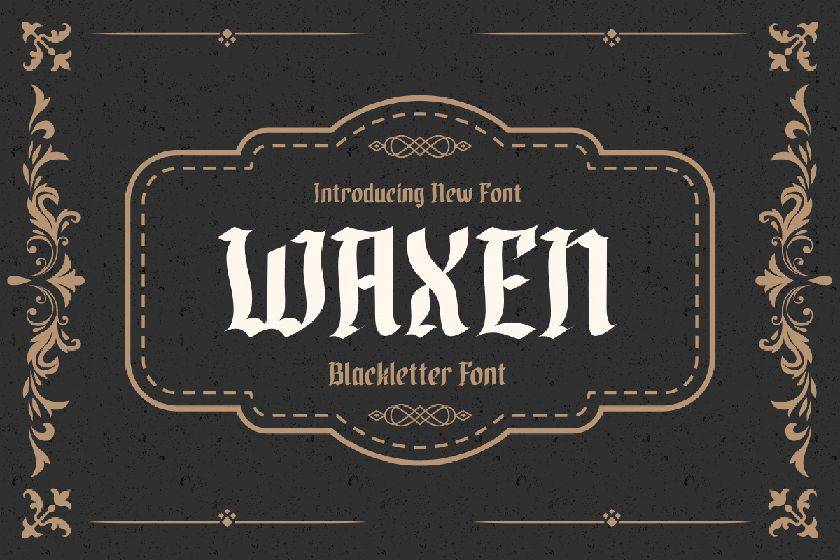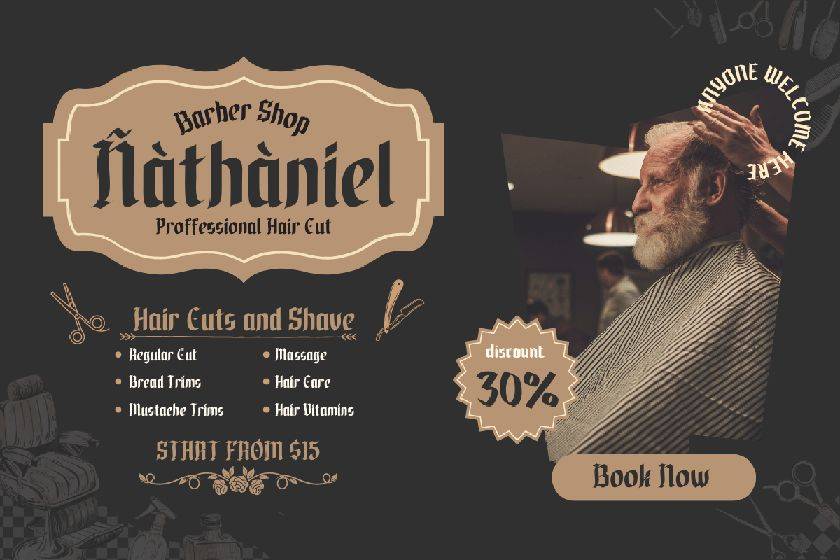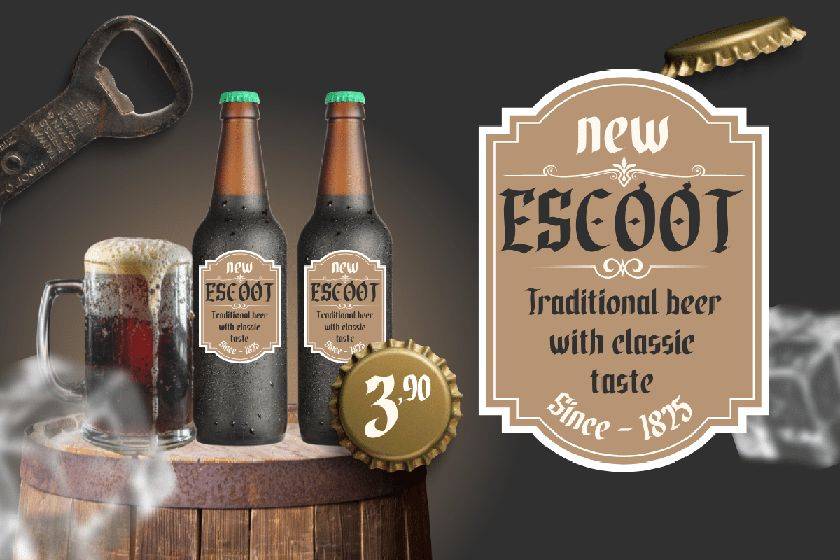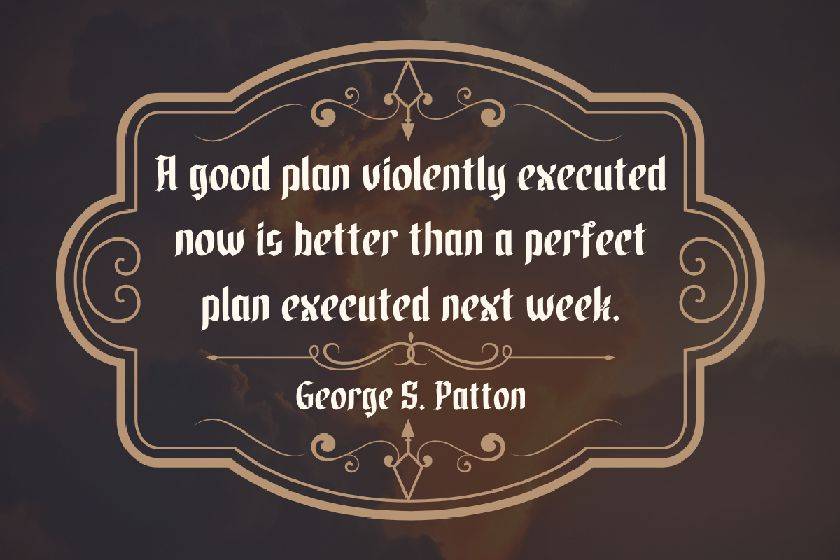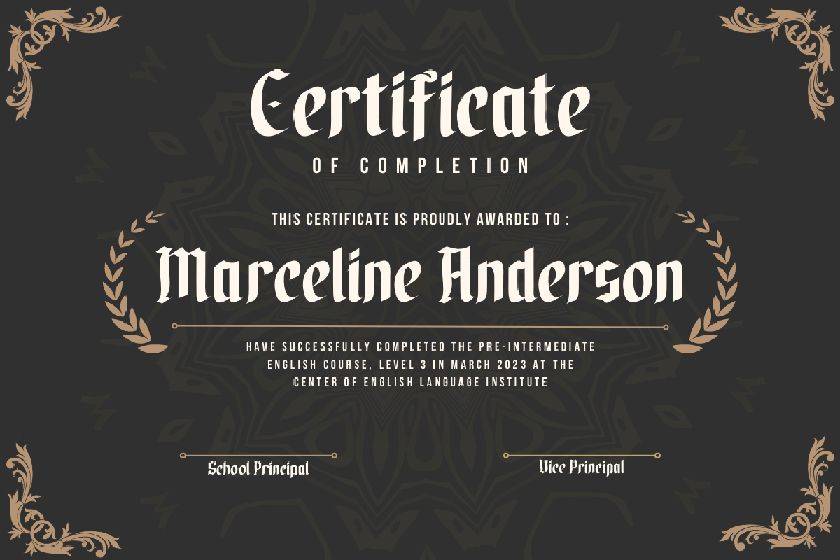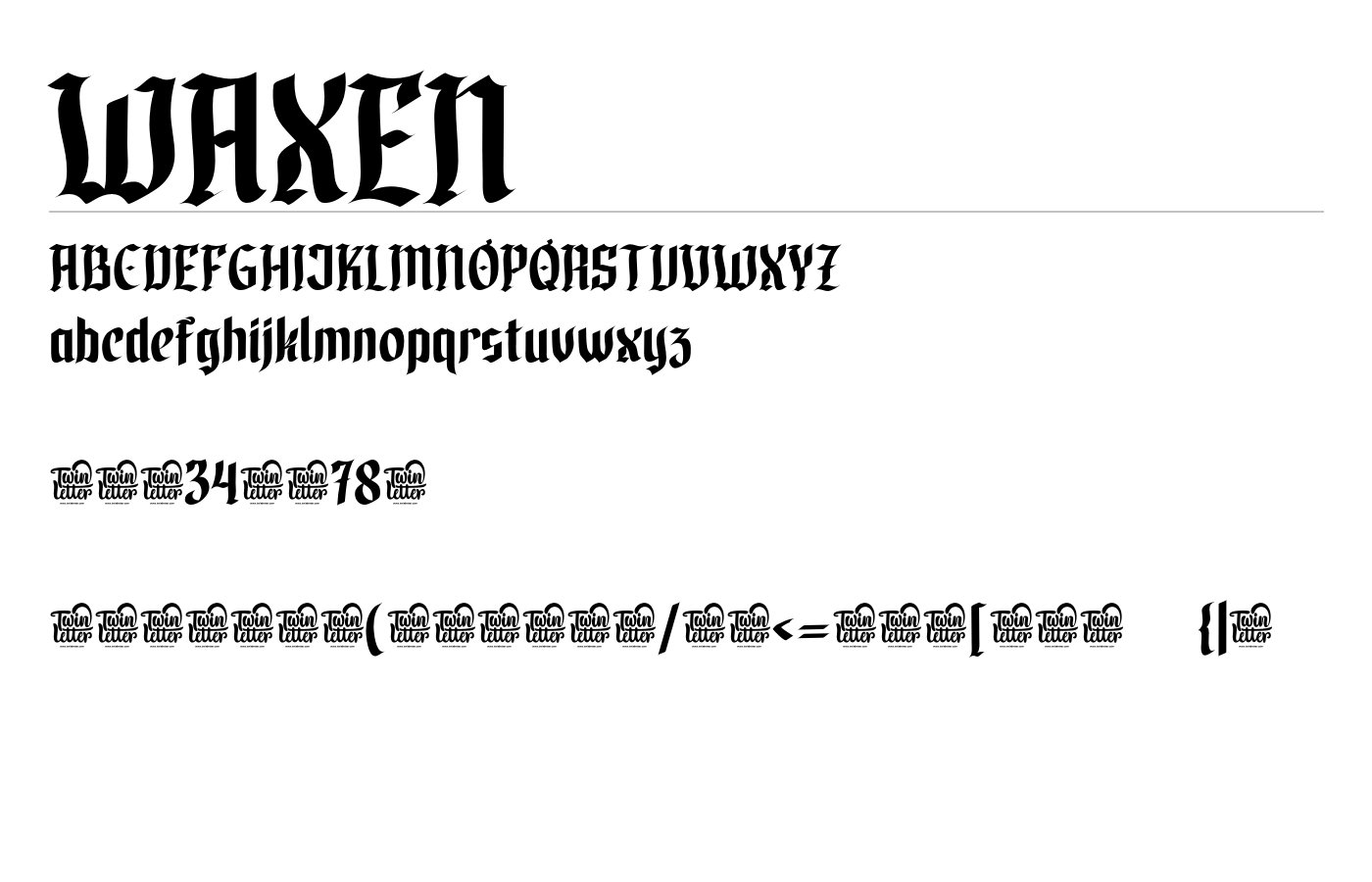
Waxen is a bold blackletter font with a strong gothic character, featuring sharp, angular strokes and dramatic contrasts that give it a striking, vintage medieval feel. Its condensed letterforms and intricate details suit it perfectly for bold headlines, logos, or branding that seeks a powerful, historic, or edgy vibe. This font works best where a dramatic and distinctive impact is needed, especially in fashion, editorial, or event design contexts.
Waxen Font
About Waxen Font